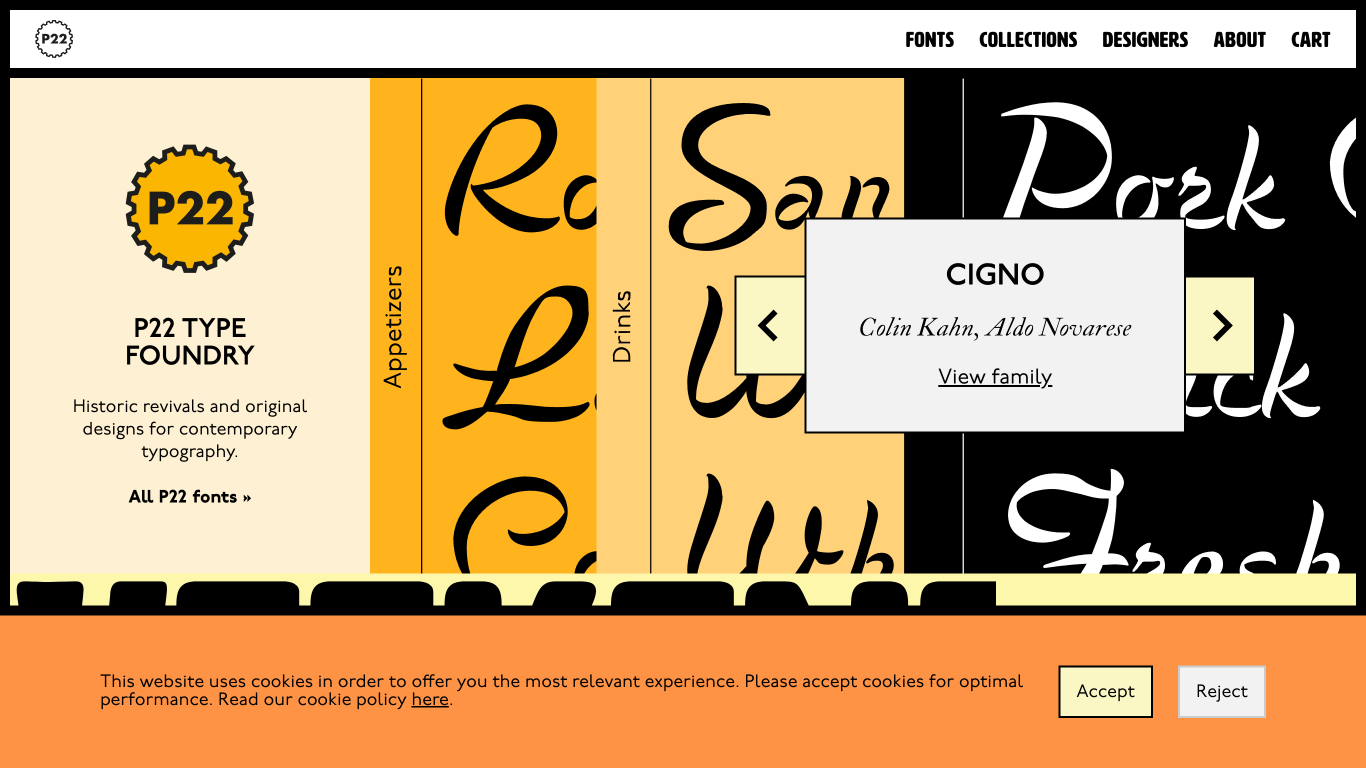
​P22 Type Foundry is a digital type foundry and letterpress printing studio based in Rochester, New York. Founded in 1994 by Richard Kegler and Carima El-Behairy, P22 specializes in historical typefaces inspired by art, history, and science. The foundry collaborates with museums and foundations to develop accurate historical typefaces and offers custom bespoke fonts for private clients. P22's typefaces have been used in various projects, including films such as Harry Potter and Suburbicon, and on commercial products like those from Trader Joe's and Founders Brewing Co.